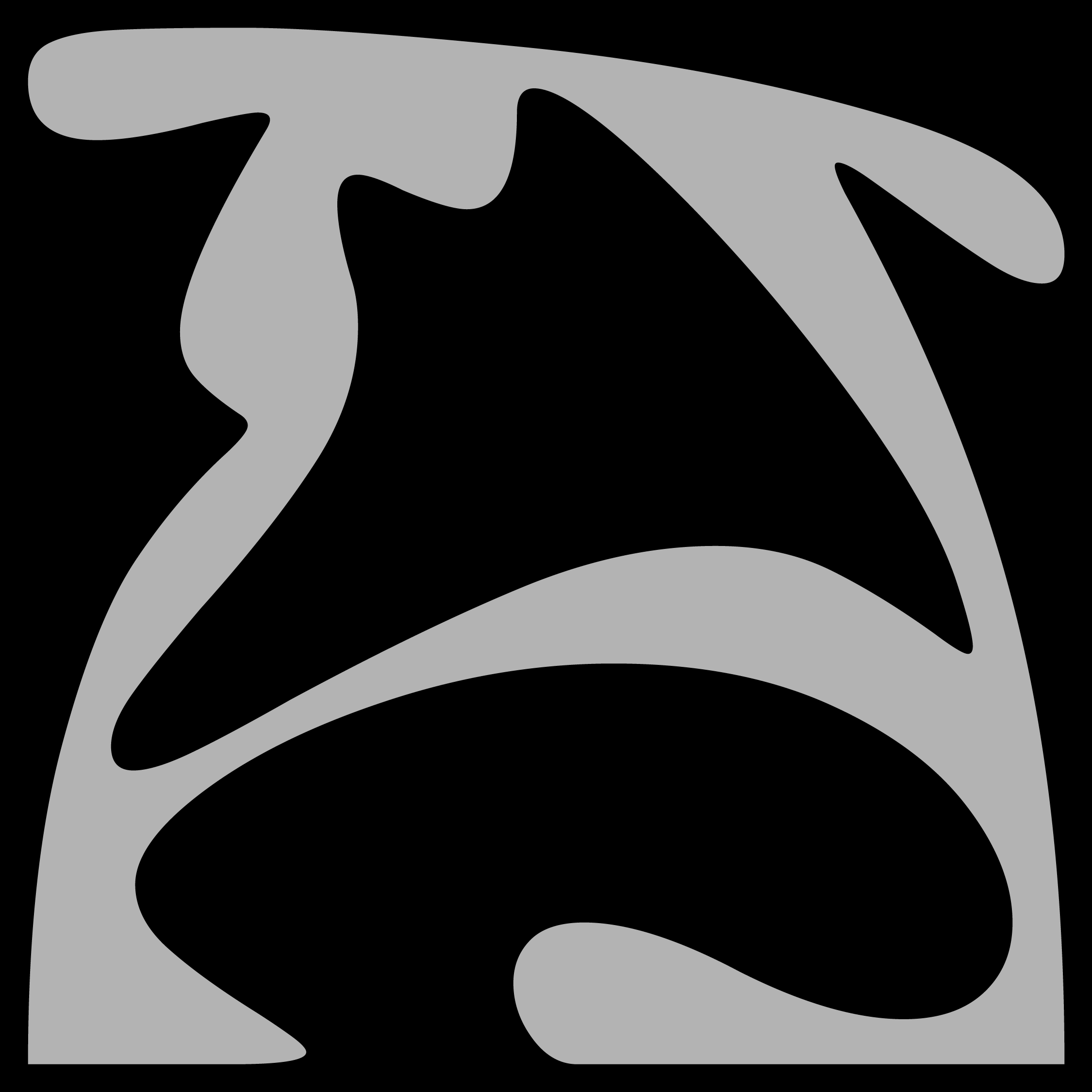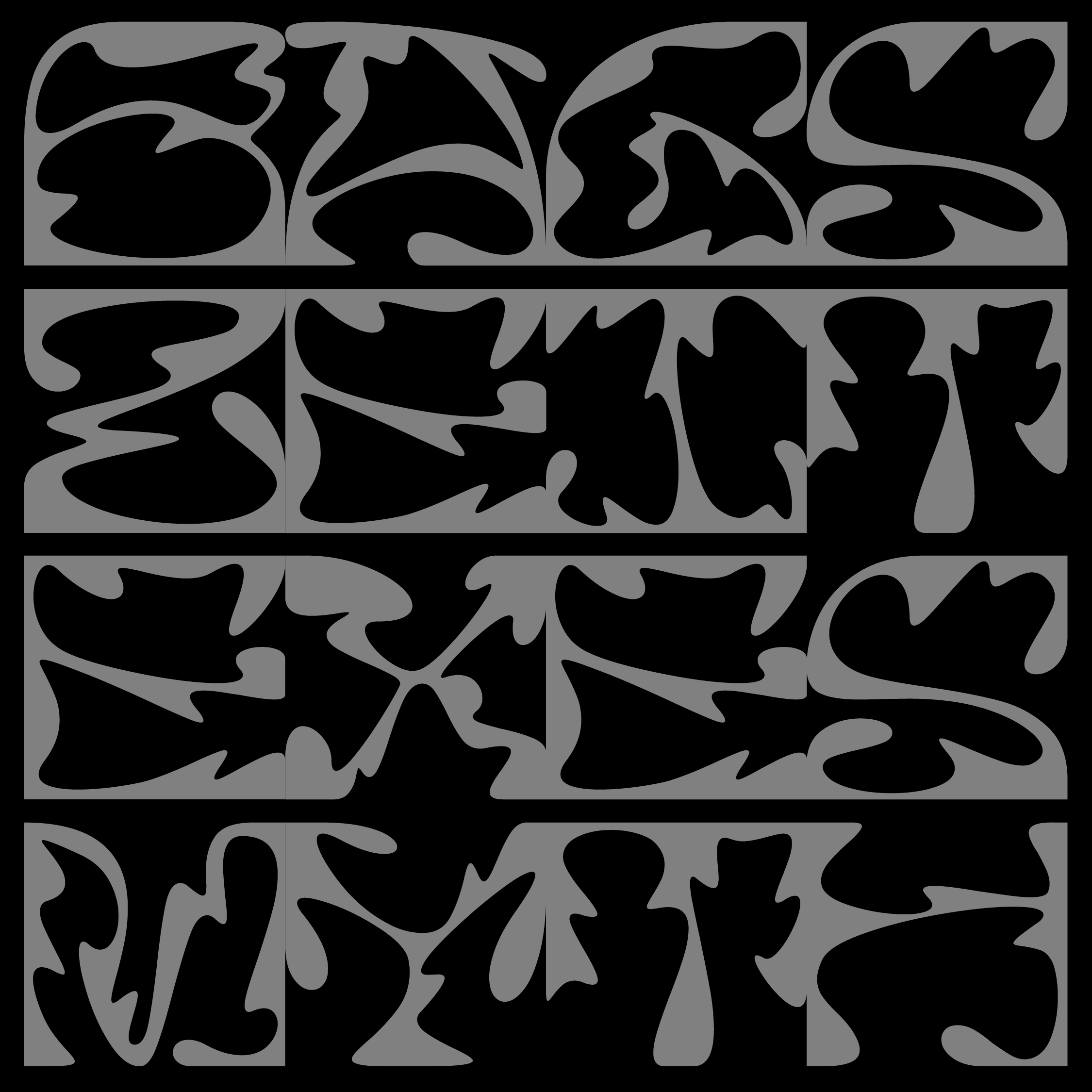
Foster Typeface
Foster is a highly customizable typeface designed to give your typography a bold, distinctive edge. With over 100 alternate glyphs, it offers endless possibilities for crafting unique letterforms and custom wordmarks. Its generous curves and impactful shapes make it ideal for powerful headlines, branding, posters, and more. Whether you're after subtle variation or expressive lettering, Foster delivers flexibility and style. Includes A–Z, 0–9, and essential symbols to cover your creative needs.
• 170+ Glyphs
• Alternates
• Basic Symbols